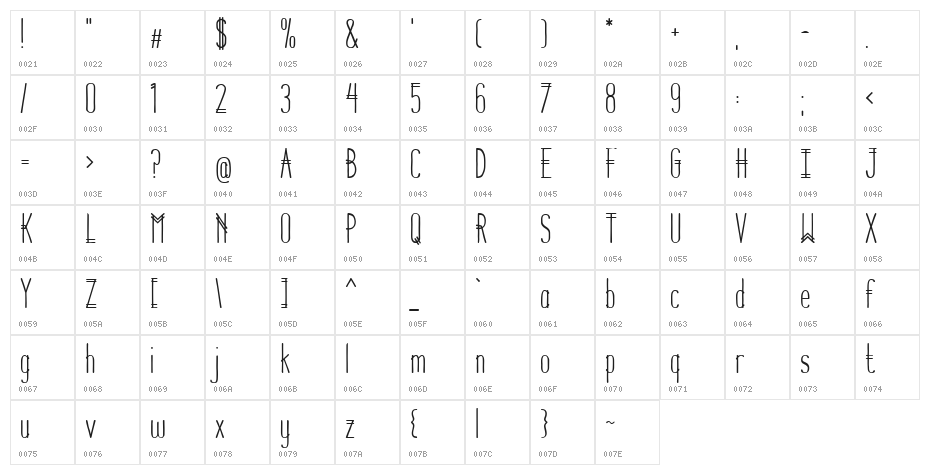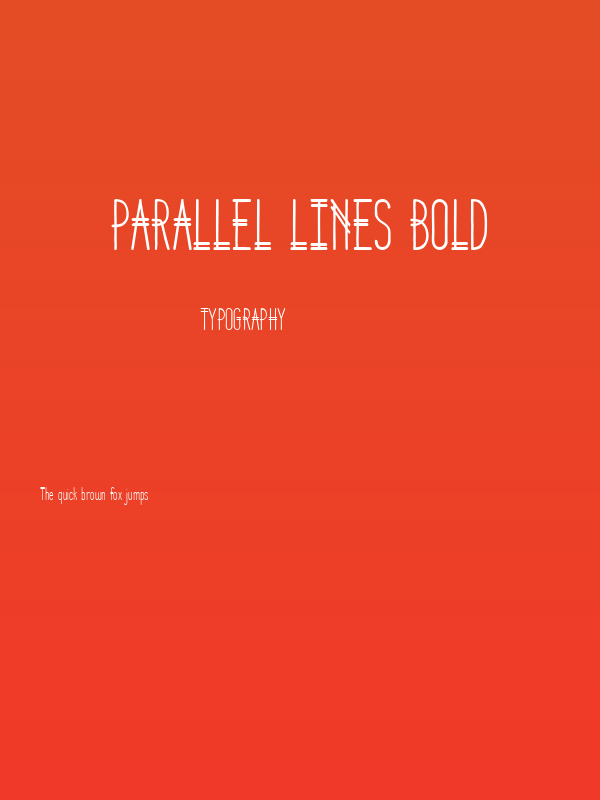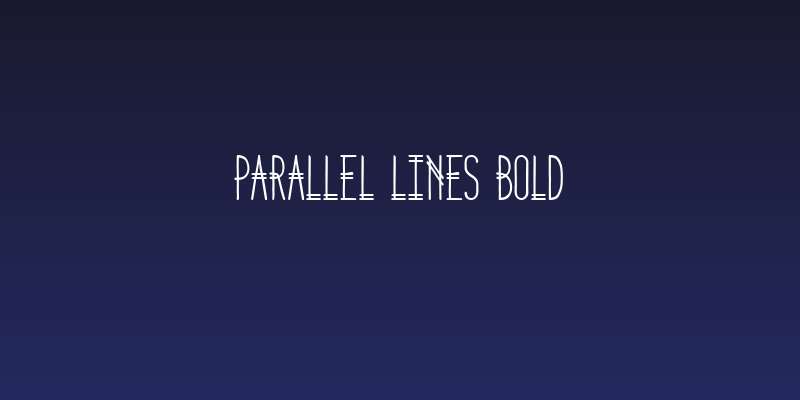
Parallel Lines Bold Font
Parallel Lines Bold Description
This font features a distinctive design with parallel lines running through each character, creating a unique and modern aesthetic. The uppercase letters are bold and structured, with a geometric influence that adds a sense of precision and style. The lowercase letters maintain a similar structure, offering a cohesive look across the typeface. Numbers and special characters are designed with the same parallel line motif, ensuring consistency throughout. The overall appearance is clean and contemporary, making it suitable for a variety of design projects.